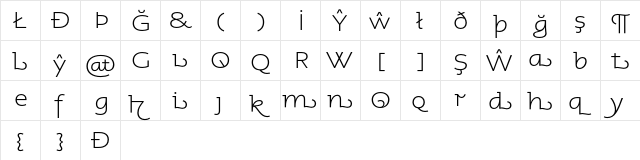
AspectAlternates Light
| Foundry | Jeremy Tankard, |
Design Context for AspectAlternates Typeface
AspectAlternates offers clean, dependable letterforms without strong stylistic allegiance, making it a practical choice for designers who need flexibility. Its slender proportions lend an understated elegance to any composition.